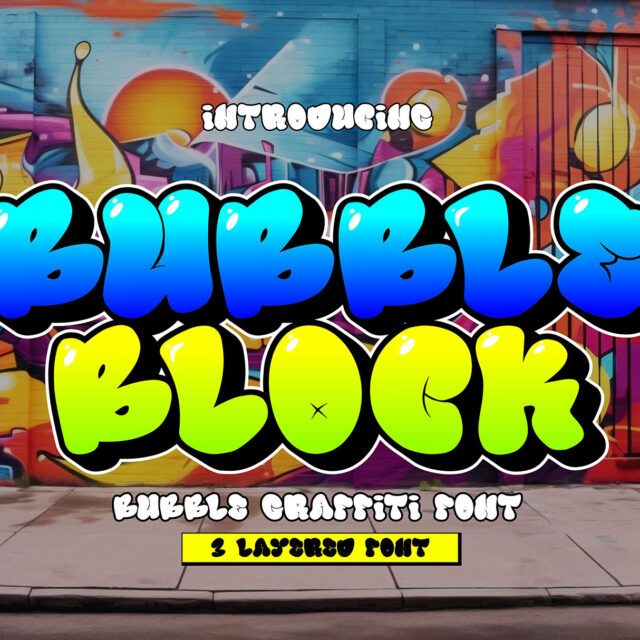
Bubble Block
"Bubble Block" is a 3D layered graffiti font that encompasses solid, shadow, and inner shadow styles, offering the tools to create a three-dimensional appearance in your text. Fonts…
About Bubble Block
“Bubble Block” is a 3D layered graffiti font that encompasses solid, shadow, and inner shadow styles, offering the tools to create a three-dimensional appearance in your text. Fonts with layered styles like this are often utilized in graffiti art, posters, or other designs that aim to create a prominent 3D effect.
By using the solid, shadow, and inner shadow layers in “Bubble Block,” you can add depth and dimension to your text, giving it a dynamic and visually impactful 3D appearance. This font enables you to create text that stands out prominently and grabs attention due to its three-dimensional effect and layered style.